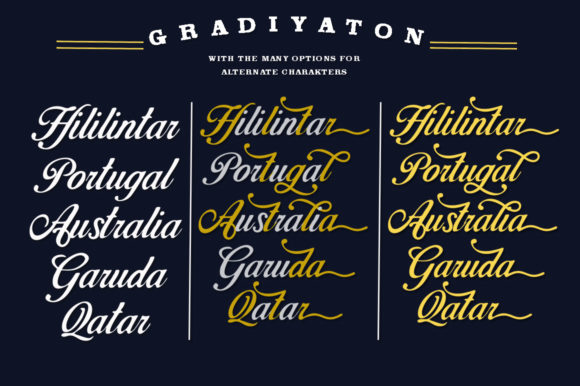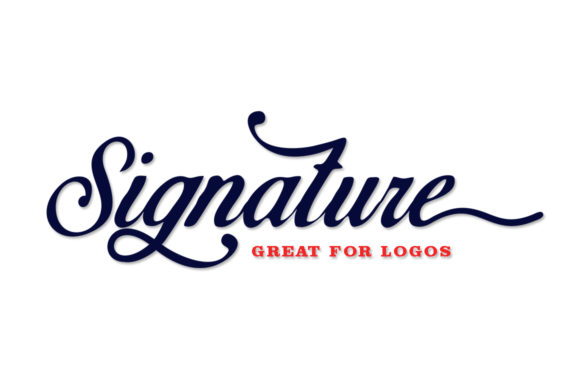
Gradiyaton Font
db-ku.com - Script & Handwritten -- Inspired by retro handlettering, Gradiyaton is a playful, yet elegant font that will inspire any design idea.